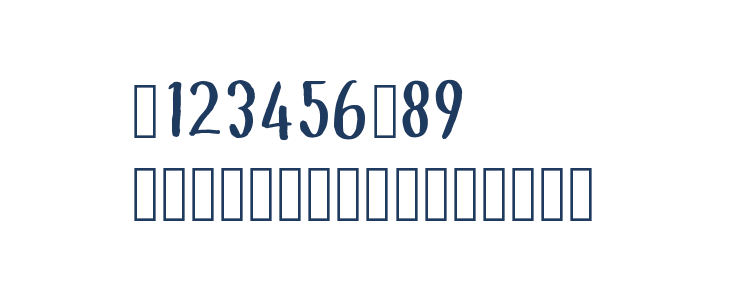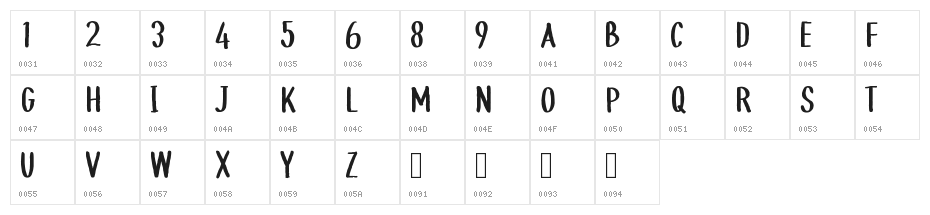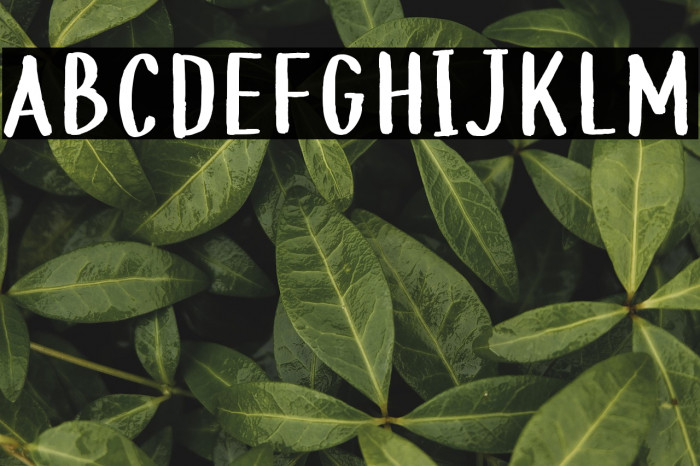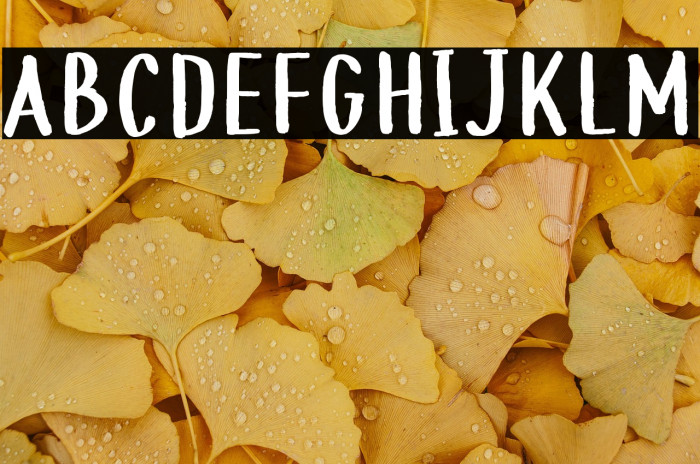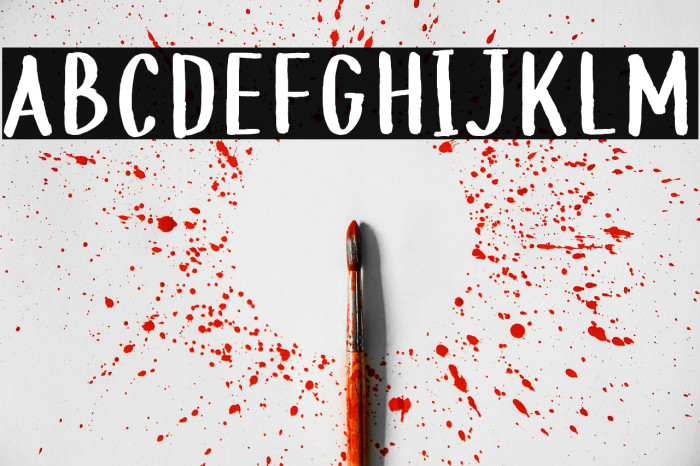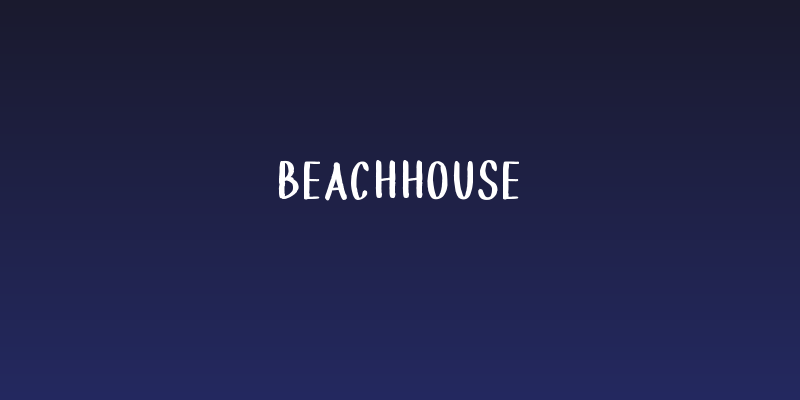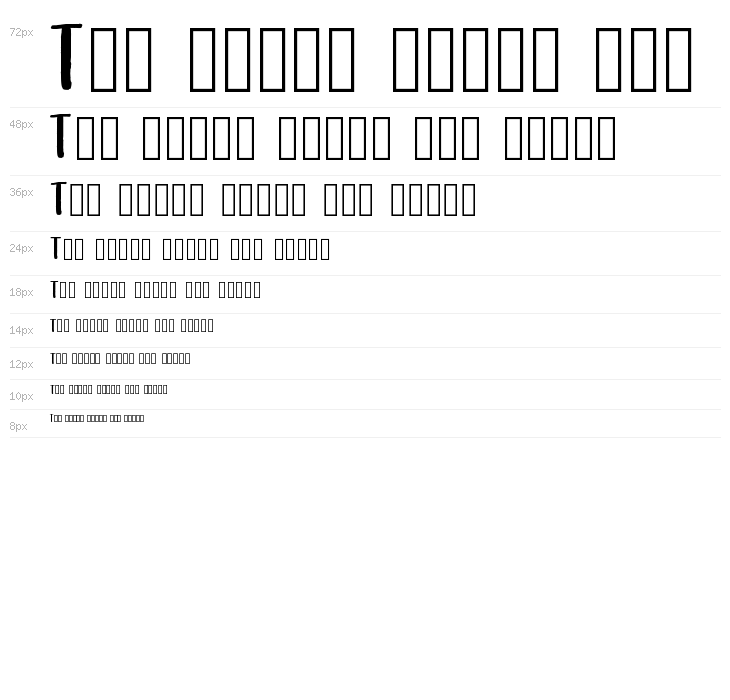
BeachHouse Font
BeachHouse Description
This font features a bold and expressive style with a hand-painted appearance, reminiscent of brush strokes. The characters exhibit a playful and casual vibe, with slightly irregular edges that add to its organic feel. The uppercase and lowercase letters maintain a consistent weight, providing a harmonious look across the alphabet. The numbers and special characters follow the same artistic style, ensuring uniformity throughout. This font is perfect for projects that require a touch of creativity and a relaxed, informal tone.